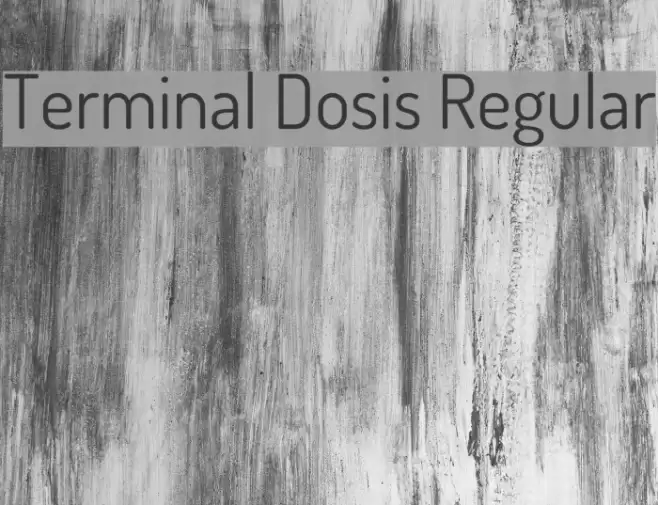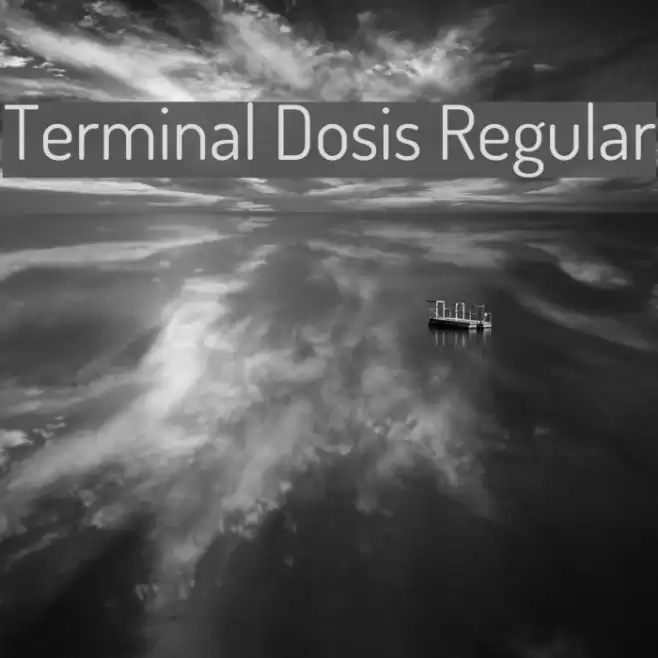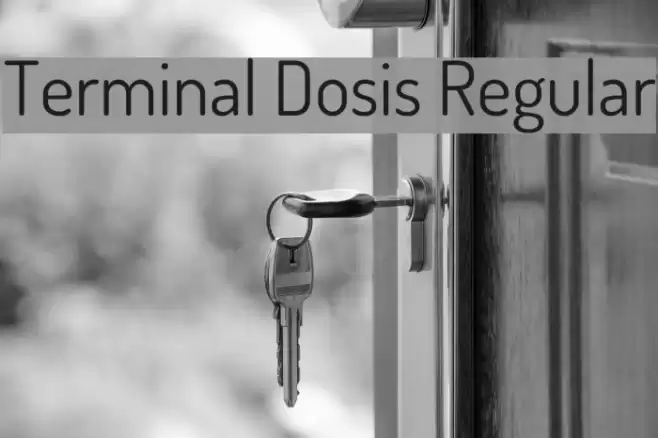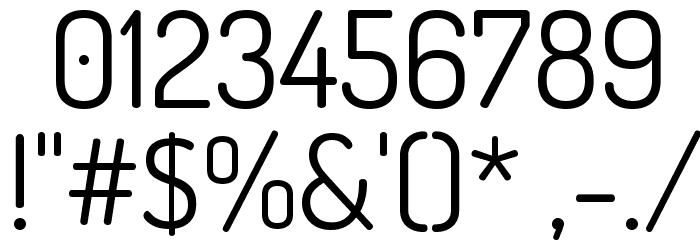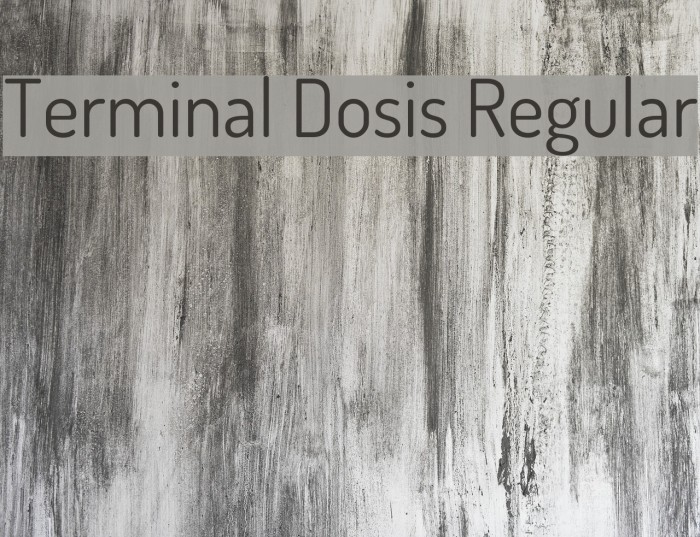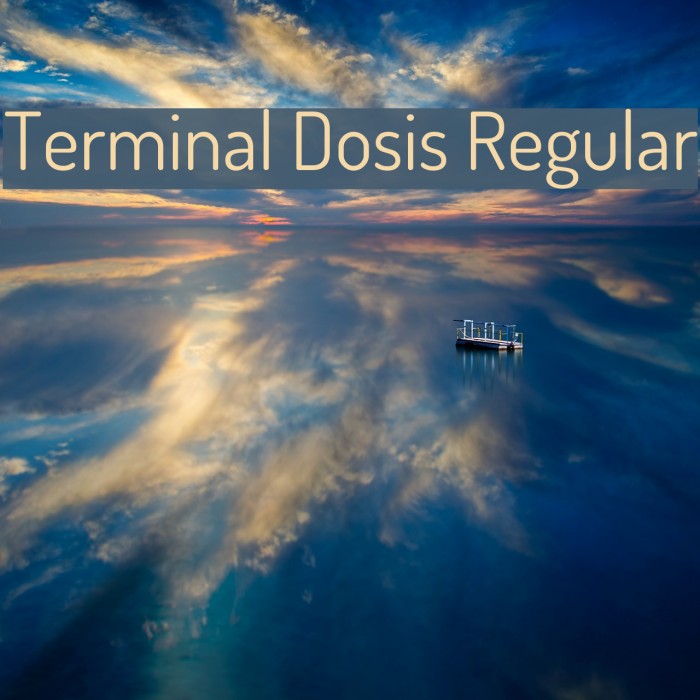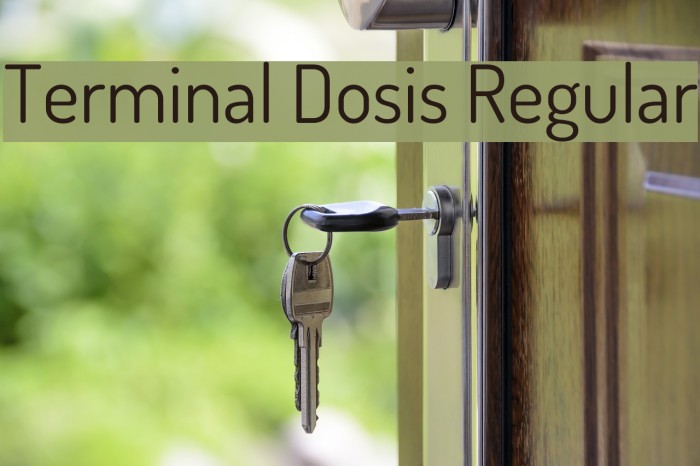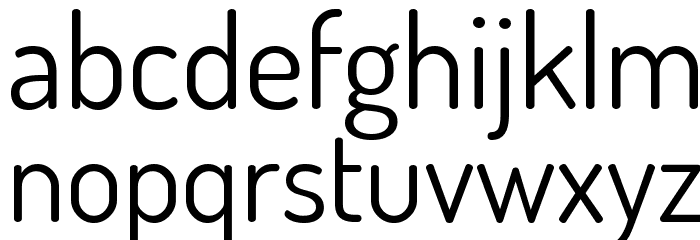
Terminal Dosis Regular Font
Terminal Dosis Regular Description
This font features a clean and modern sans-serif design with rounded edges that give it a friendly and approachable appearance. The characters are evenly spaced, providing a balanced and harmonious look. The uniform stroke width across all characters contributes to its sleek and contemporary style. It is highly legible, making it suitable for a variety of applications. The numerals and special characters maintain the same design consistency, ensuring a cohesive visual experience.
A modern, rounded sans-serif font with uniform stroke width and high legibility from Uncategorized fonts.
- Proposed Projects: Ideal for web design, app interfaces, branding, and advertising materials where a modern and friendly appearance is desired.